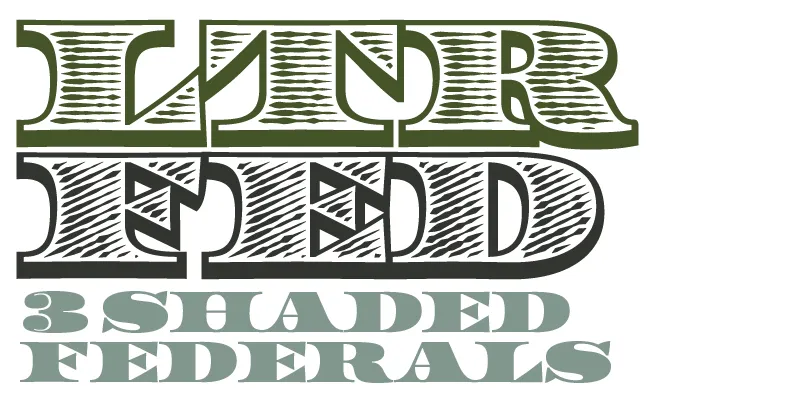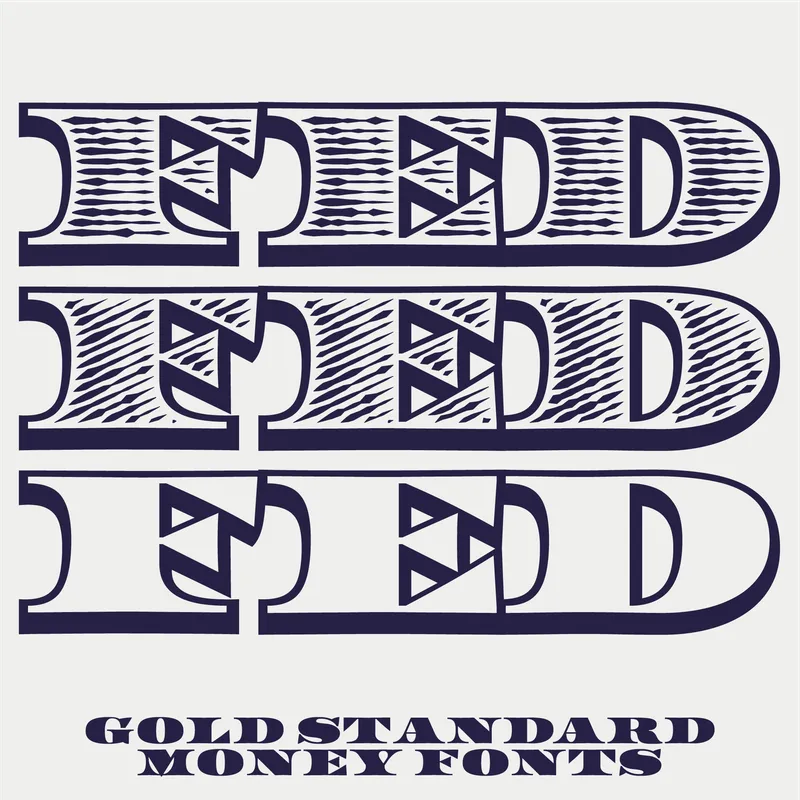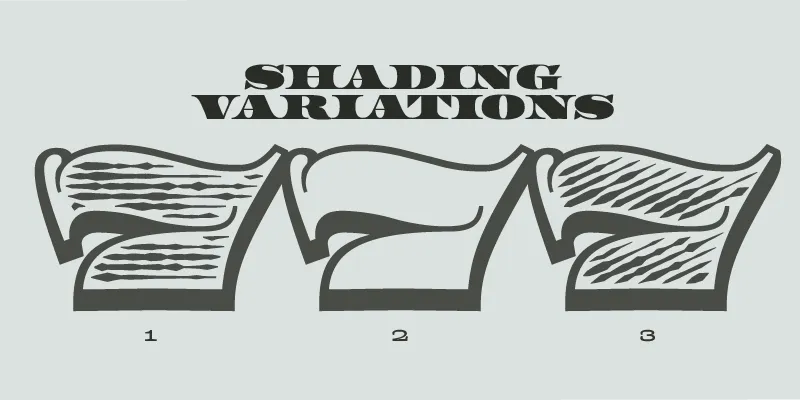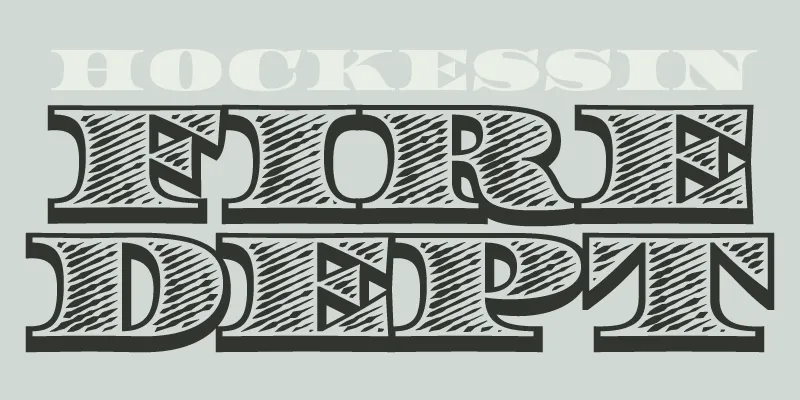
LTR Federal Bureau takes its details from the Optical Twelve Line. But all the layers are already applied. All three Bureaus have the beveled edge, each has a different fill. Easy to use, no layering necessary, just type.
Some ligatures and glyph variants that improve the spacing of some combinations. Easy to type, instant Bureau.
LTR Federal Bureau in combination with LTR Federal. Such classic typography really needs multiple fonts for hierarchy and variation. Go wild.